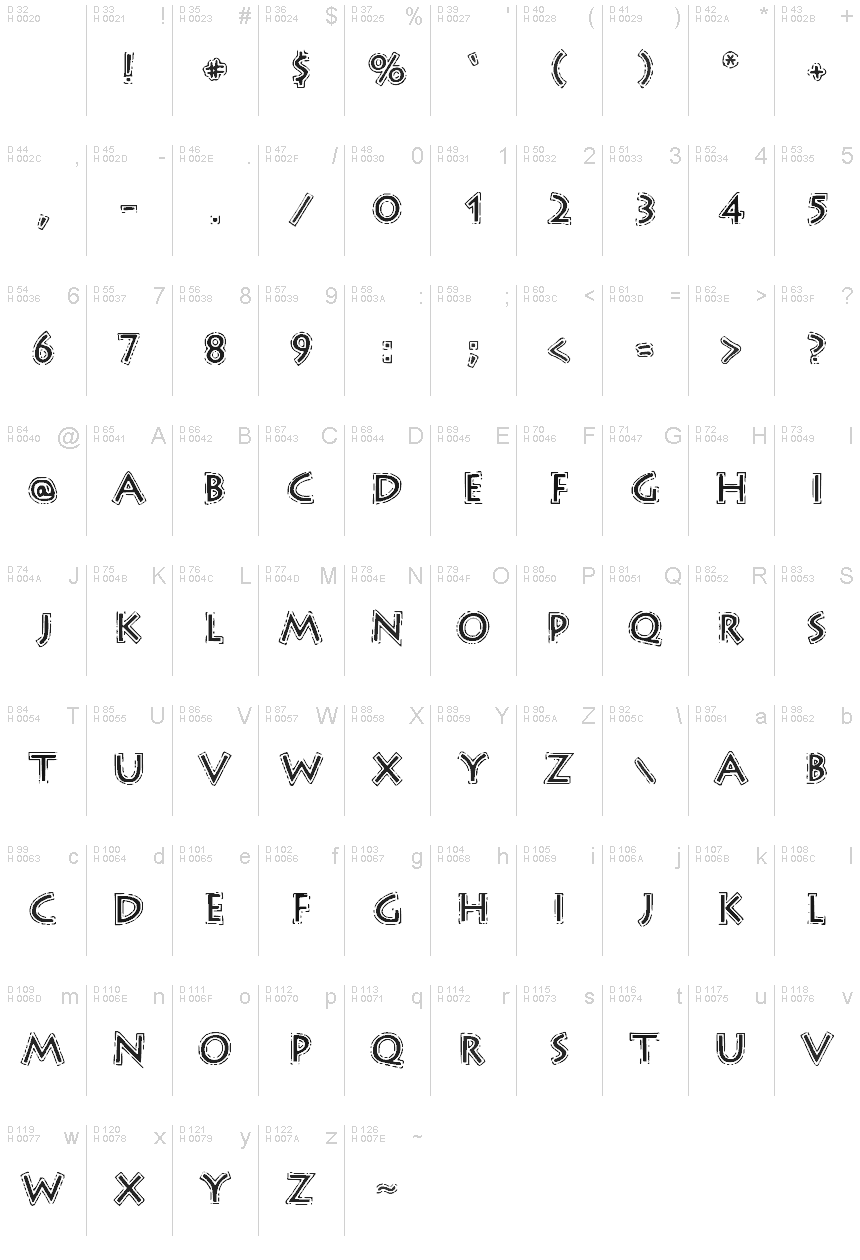
OutlineStorm
Outline Storm is a captivating display font designed by Leonard Posavec of LeoSupply.co. Its striking, hand-drawn aesthetic evokes a sense of raw energy and movement, making it an ideal choice for headings, logos, and attention-grabbing text. The uneven strokes and irregular edges lend the font a rugged, weathered appearance, evoking the powerful imagery of a raging storm.
Outline Storm's versatility shines in a wide range of applications, from editorial design and packaging to branding and event materials, where its distinctive character can make a bold statement.